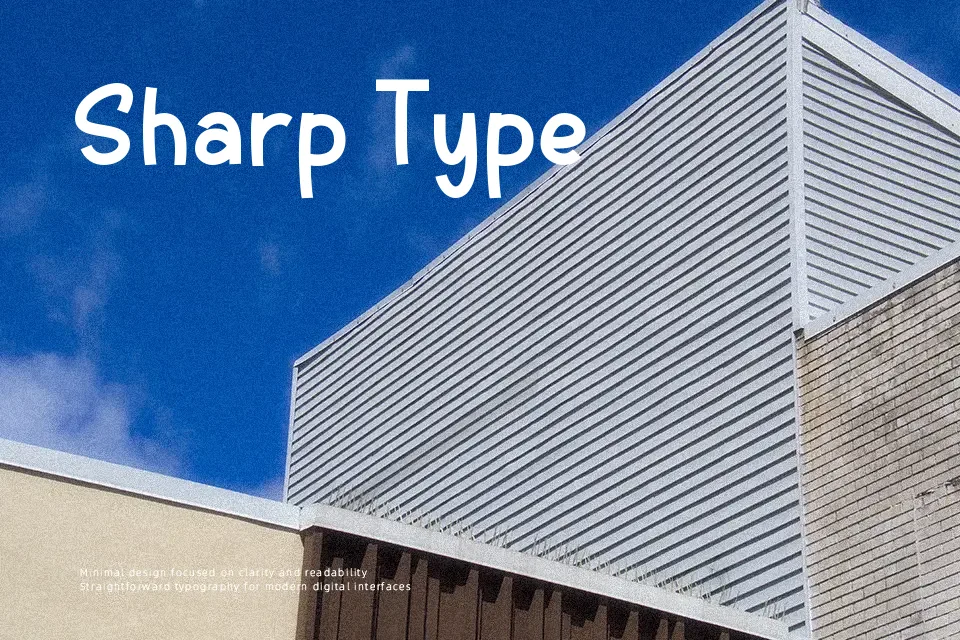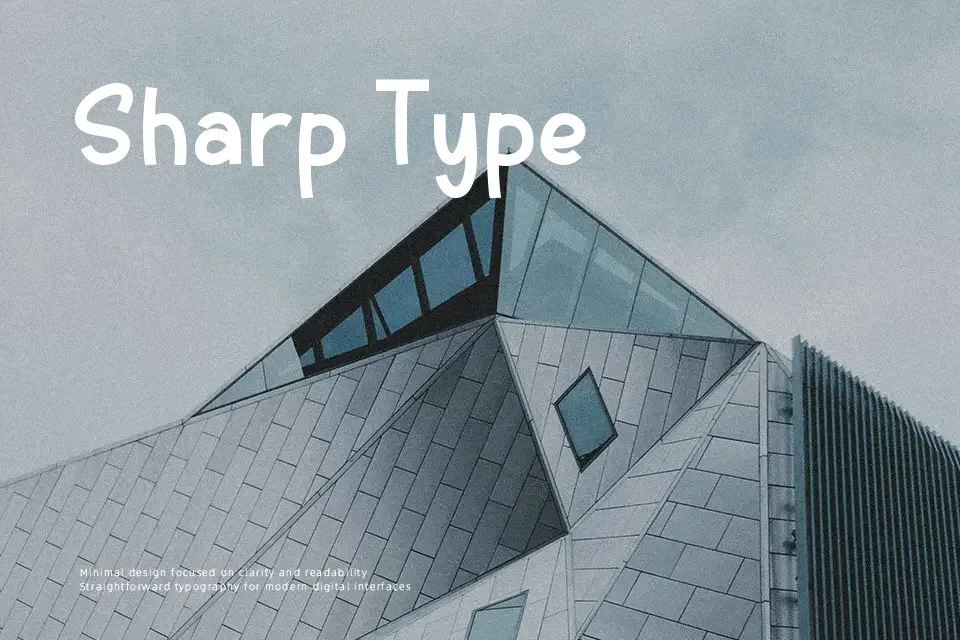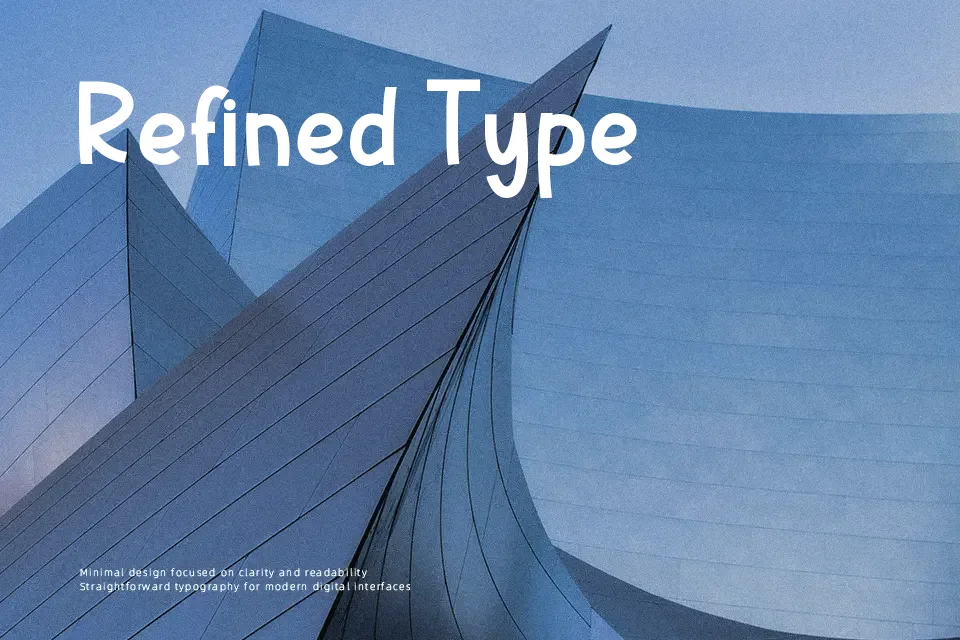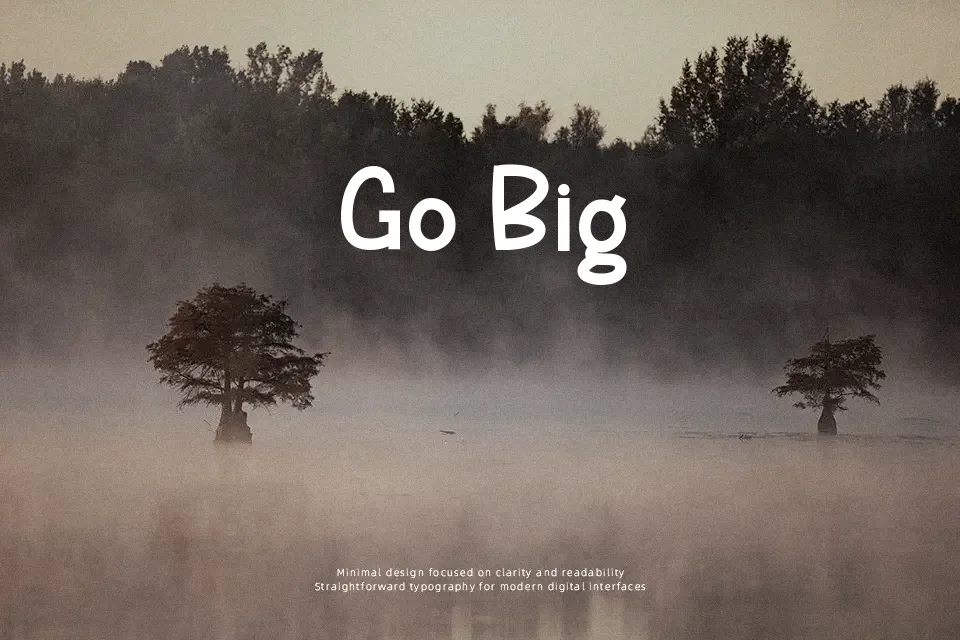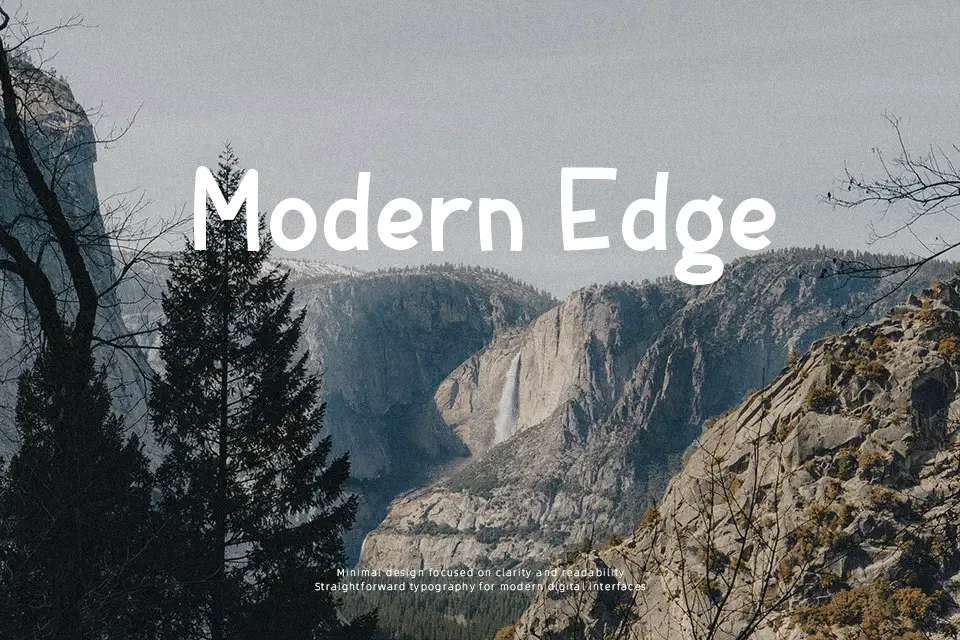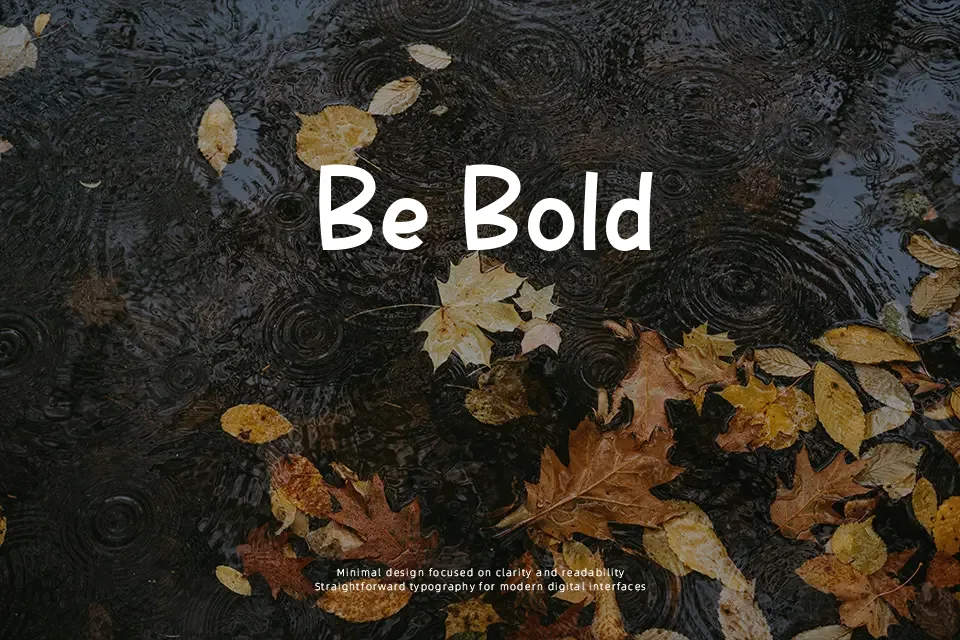
Sweet Autumn Font
Sweet Autumn Font presents an approachable display style defined by soft contours, consistent stroke thickness, and gentle geometric curves. The generous proportions and open letter spacing establish a balanced rhythm that catches attention across prominent headline arrangements and playful branding concepts. Clean structural joins and distinct terminals maintain good clarity in medium and large display formats, serving children’s book covers, party signage, and novelty packaging effectively. However, the heavy strokes and relaxed letterforms reduce comfort during extended reading, making the design less suitable for continuous paragraphs or compact user interface elements. The typeface performs best when displayed at larger sizes.
Best For: children’s book covers, party event signage, novelty merchandise packaging, casual video thumbnails
Not Ideal For: continuous paragraph text, corporate financial reports, compact mobile user interfaces, technical documentation
Perfect for branding, headline, and kids, with a cute and cartoon style.